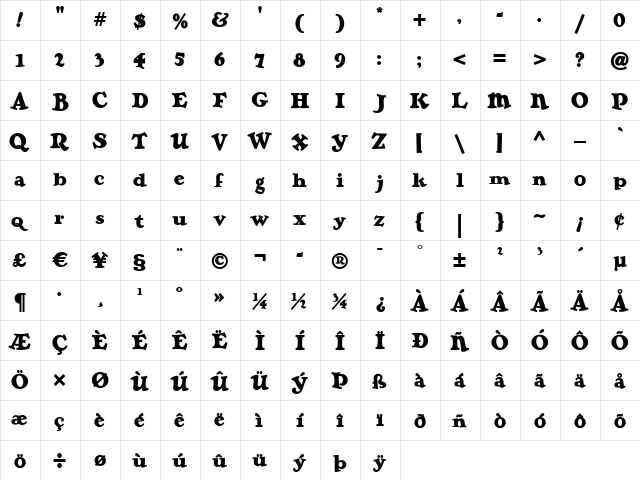
Whoopee Cushion SW Regular
| Foundry | Nick Curtis |
Design Context for Whoopee Cushion SW Typeface
Whoopee Cushion SW is a composed and adaptable typeface that performs quietly and consistently across a wide range of design contexts.